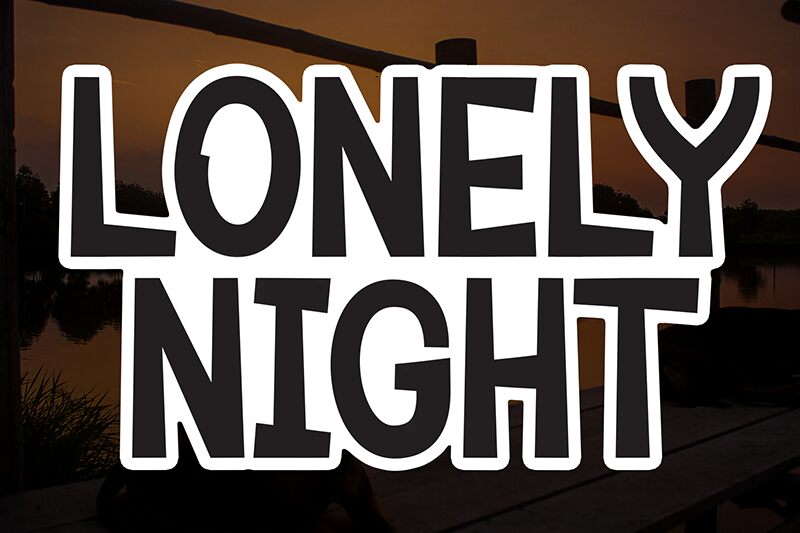
Lonely Night
Lonely Night font by Andi Moz is expressive with its casual and playful appearance. The free cartoon display font has a rugged, distressed texture giving it an urban vibe. It carries a youthful aura with an emotive swing that captures attention through readable characters while achieving communicative success.
The versatile typeface can be used for posters, comic books, children’s’ drawings, quotes, headlines, blogs, social media platforms, petite product branding ideas such as food or drink packages in vibrant colors to achieve the perfect theme. Let your creative thinking churn out outstanding outputs using this font!